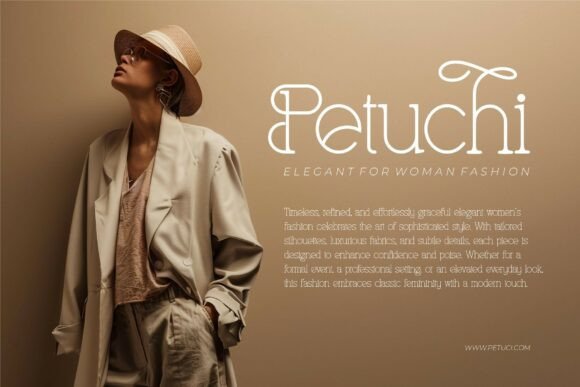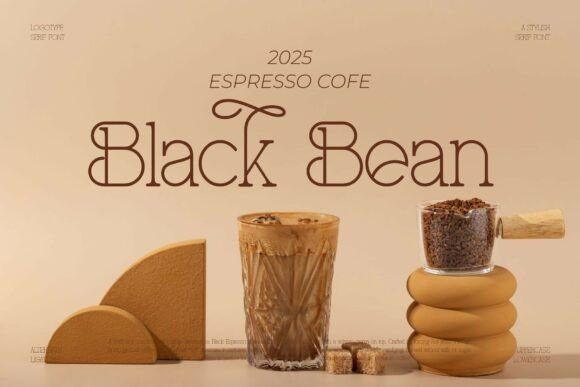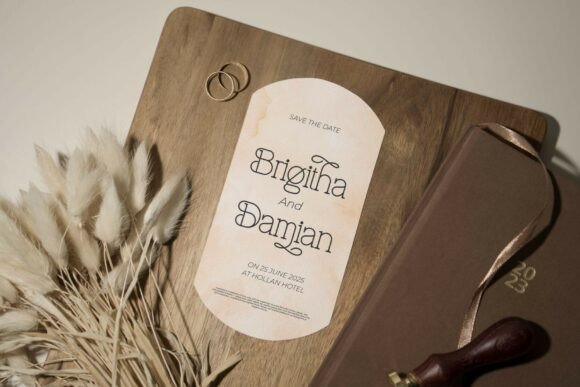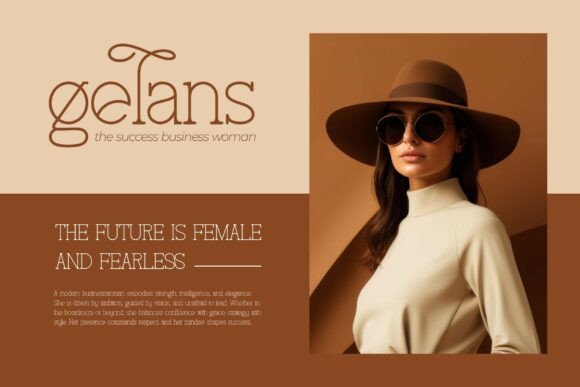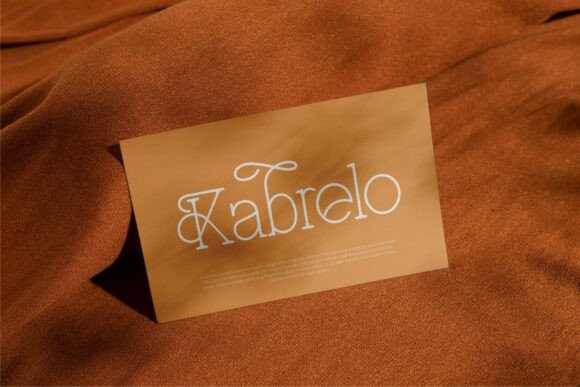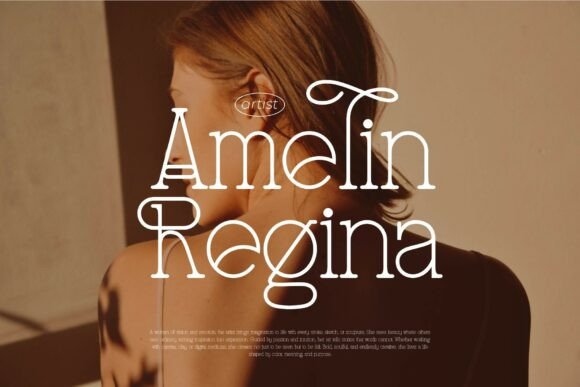
Introduction to Radelo Font
Imagine yourself in a creative flow, surrounded by endless possibilities, and finally finding the perfect font to bring your design project to life. That’s exactly what happens when you stumble upon the elegant Radelo Font. With its thin, stylish serif design, Radelo Font is a game-changer for designers seeking to add a touch of modern sophistication to their work.
As a valuable design resource, Radelo Font offers high-quality typography that’s perfect for beauty products, signature logos, branding suites, and sophisticated editorial content. Whether you’re working on a free download project or need a font with a transparent background, Radelo Font is an excellent choice. Its delicate ligatures and graceful strokes make it an ideal addition to any creative project, allowing designers to express their unique vision with precision and style.
- Unique, modern design that can add a touch of elegance to any creative project.
Honest Review: Radelo Font
I recently stumbled upon the Radelo Font, and I must say it’s been a game-changer for my design projects. The free download was a pleasant surprise, and the transparent background makes it incredibly versatile.
Here’s what works well for me: ✨ The high-quality design is perfect for creative projects that require a touch of elegance. The font’s clean and minimalist aesthetic makes it suitable for a wide range of applications, from branding to digital graphics.
The Radelo Font offers a range of styles, from bold to light, giving me plenty of options to experiment with. The font’s consistency across different weights and styles is impressive, making it easy to use in various design contexts.
While the Radelo Font is an excellent design resource, I do have a few minor quibbles: ⚠️ The font’s range of weights is limited compared to some other high-end fonts. Additionally, the font may not be suitable for very small text sizes due to its clean design.
Overall, I’m thoroughly impressed with the Radelo Font. Its high quality, versatility, and wide range of applications make it a valuable addition to my design toolkit. If you’re looking for a reliable and stylish font for your next creative project, the Radelo Font is definitely worth checking out.
- Clean and minimalist aesthetic
- Wide range of applications
Tips for Getting the Most Out of Radelo Font
To get the most out of the Radelo Font, experiment with different font sizes, colors, and combinations. You can also pair the Radelo Font with other high-quality fonts to create a unique and eye-catching design.
Common Use Cases for Radelo Font
The Radelo Font is suitable for a variety of creative projects, including social media graphics, posters, flyers, presentations, and documents. Its transparent background and high-quality design make it an ideal choice for designers and non-designers alike.